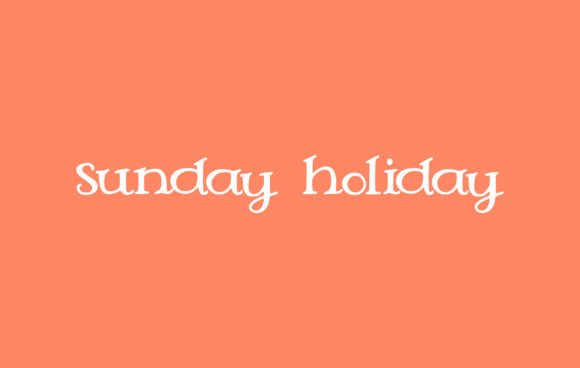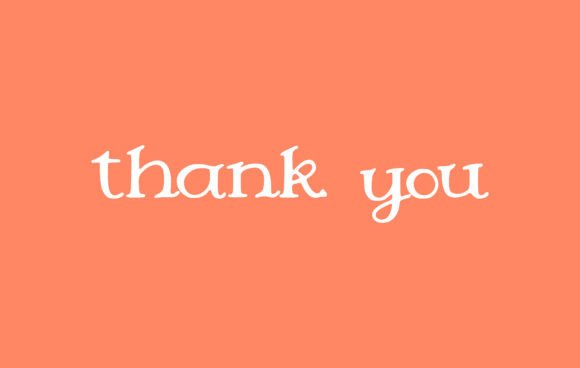
Introduction to Shelduck Font
As a designer, have you ever found yourself scrolling through a sea of generic fonts, searching for that one special element to bring your creative project to life? The moment of discovery, when you stumble upon a font that perfectly captures the essence of your vision, is like a breath of fresh air. And that’s exactly what the Shelduck Font offers – a unique blend of elegance and playfulness that’s sure to elevate your design to the next level.
Key Features of Shelduck Font
- Includes a range of glyphs and characters for versatility in design
- Perfect for use in logos, branding, and graphic design projects
Honest Review: Shelduck Font
I recently had the opportunity to try out the Shelduck Font, and I must say, it’s a great addition to any designer’s arsenal. This font is perfect for creative projects where you need a unique touch. The high quality of the font is immediately noticeable, making it a valuable resource for any design project.
What works well with the Shelduck Font:
- Its high quality and unique design make it perfect for creative projects.
- The transparent background is a big plus, allowing for easy use in various design scenarios.
- It’s a great addition to any designer’s collection.
Overall, I’m impressed with the Shelduck Font. It’s a great resource for designers who want to add a unique touch to their projects. While it may have some limitations, its quality and uniqueness make it a valuable addition to any design collection. ⚠️ With a little caution and understanding of its limitations, the Shelduck Font can be a fantastic asset for any designer. ✨
Introduction to Shelduck Font
Shelduck Font is a high-quality design resource perfect for any creative project. With its unique style and transparent background, it’s an ideal choice for designers looking to add a touch of elegance to their work.
Tips for Getting the Most Out of Shelduck Font
- Experiment with different font sizes and colors to create a unique look.
- Use the transparent background feature to create a sense of depth and dimension.
- Combine the Shelduck Font with other design elements to create a cohesive and visually appealing design.
- Business cards and branding materials
- Photography and graphic design projects